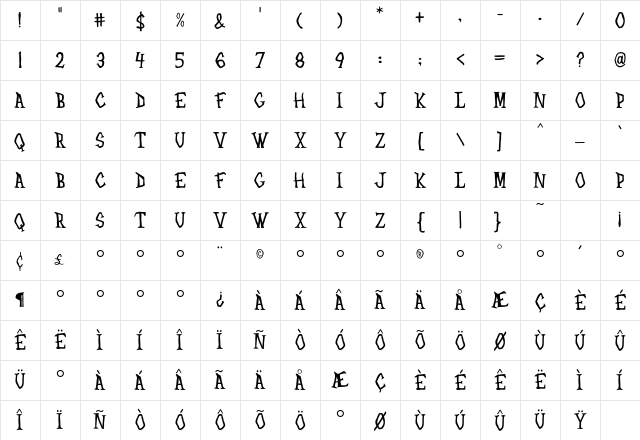
Flyerfonts WhiteHouse Free Font
Flyerfonts WhiteHouse
Style: WhiteHouse
Complete Flyerfonts WhiteHouse glyph index. Displaying only characters natively supported by Flyerfonts WhiteHouse font.
Design Context for Flyerfonts
Flyerfonts is a composed and adaptable typeface that performs quietly and consistently across a wide range of design contexts.